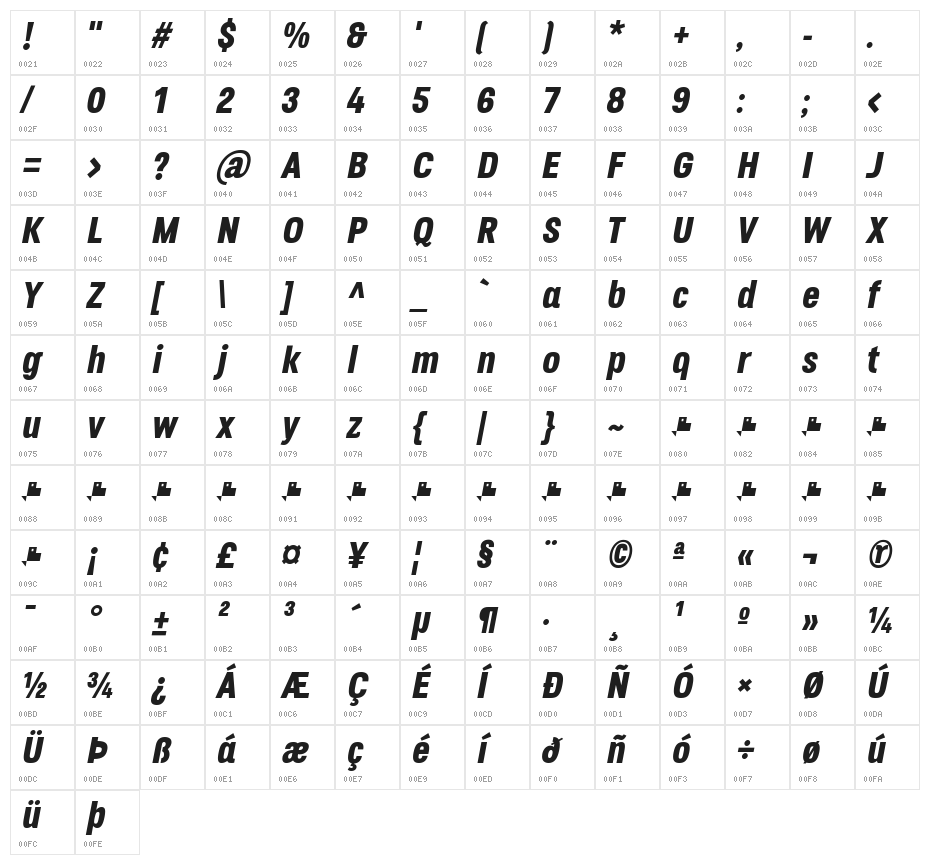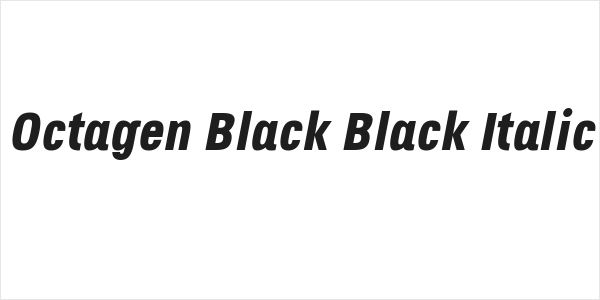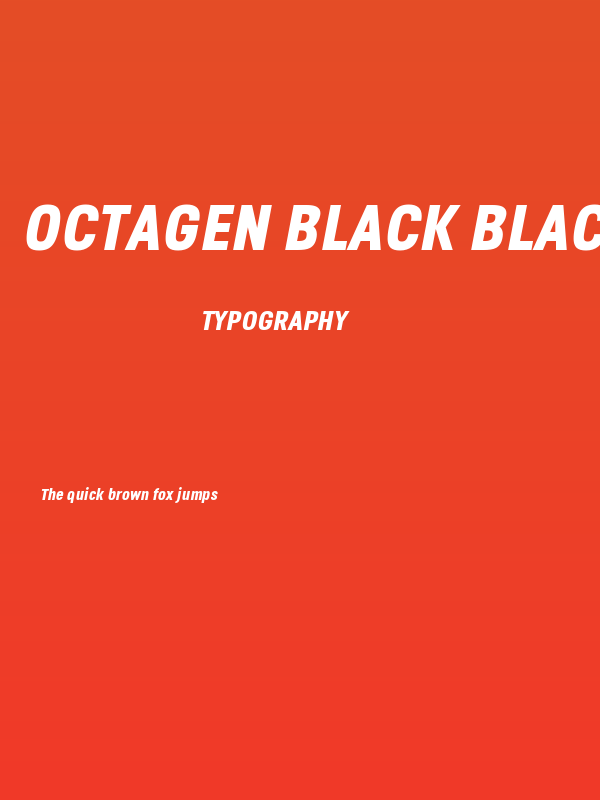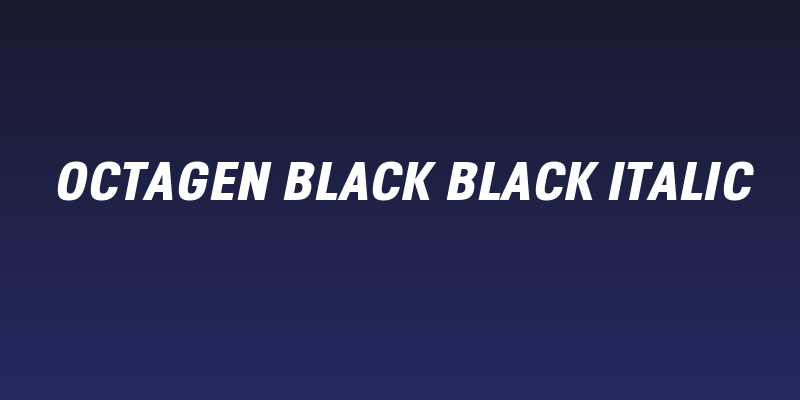
Octagen Black Black Italic Font
Octagen Black Black Italic Description
This bold and italicized font features strong, thick strokes that convey a sense of power and assertiveness. The letters are slightly slanted, adding a dynamic and forward-moving feel. The uppercase and lowercase characters maintain a consistent weight, ensuring readability while emphasizing their bold nature. The numerals and special characters are equally robust, making them stand out effectively. This font's design is modern and impactful, suitable for making statements in various media.
| Proposed Projects | Ideal for headlines, posters, branding materials, and any project requiring a strong visual impact. |